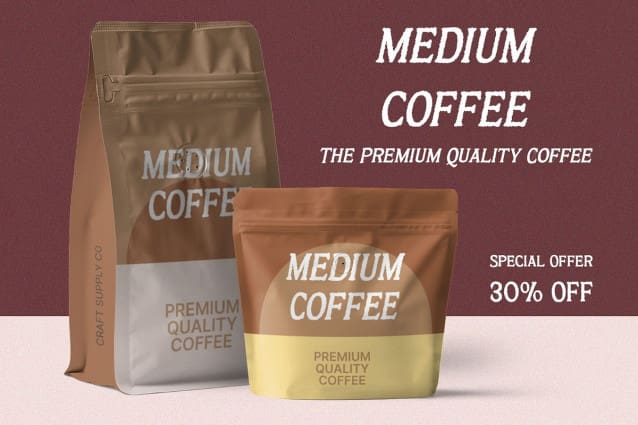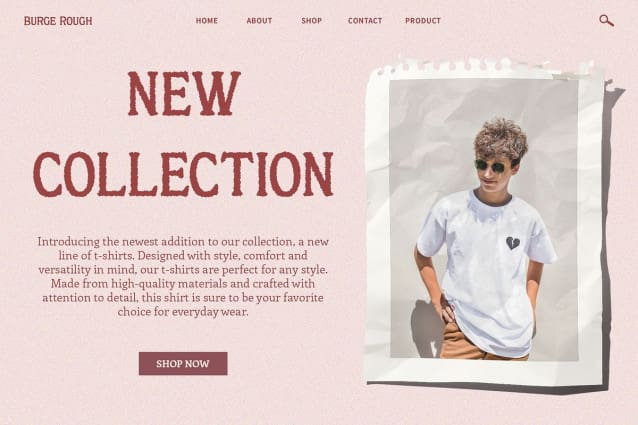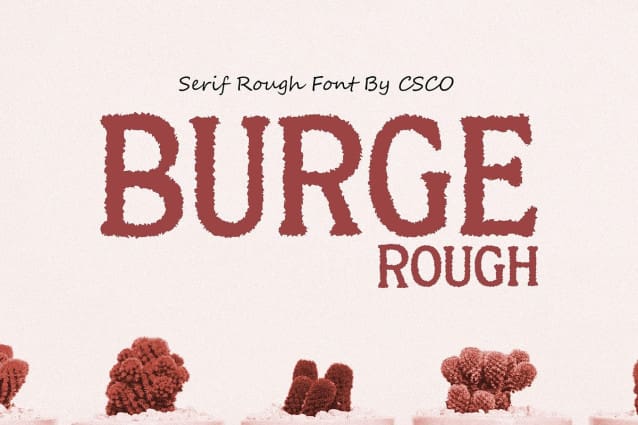
Burge Rough Font
Burge Rough Font: Vintage-Inspired Display Typeface. Vintage Vibes with a Modern Twist Burge Rough combines classic serif aesthetics with a contemporary low-contrast design. Its rough texture adds a vintage touch to any project, while maintaining a modern edge.
Serif Charm, Low Contrast Appeal Featuring serif letterforms with low contrast, This font exudes timeless charm with its elegant yet understated appearance. Its unique rough effect adds character and depth to each character.
Perfect for Vintage Designs Tailored for vintage-inspired designs, This font is ideal for projects seeking to evoke nostalgia and authenticity. From posters to branding, its distinctive style adds a rustic charm to any application.
Versatile Usage Across Projects With its versatile design, This font lends itself well to various design projects. Whether used for headlines, signage, or editorial layouts, its vintage-inspired aesthetic enhances the visual appeal of any design.
Timeless Elegance with Vintage Flair This font offers a perfect blend of timeless elegance and vintage charm. Its low-contrast serif design, coupled with a rough texture effect, makes it an ideal choice for designers looking to infuse their projects with a touch of nostalgia and sophistication.